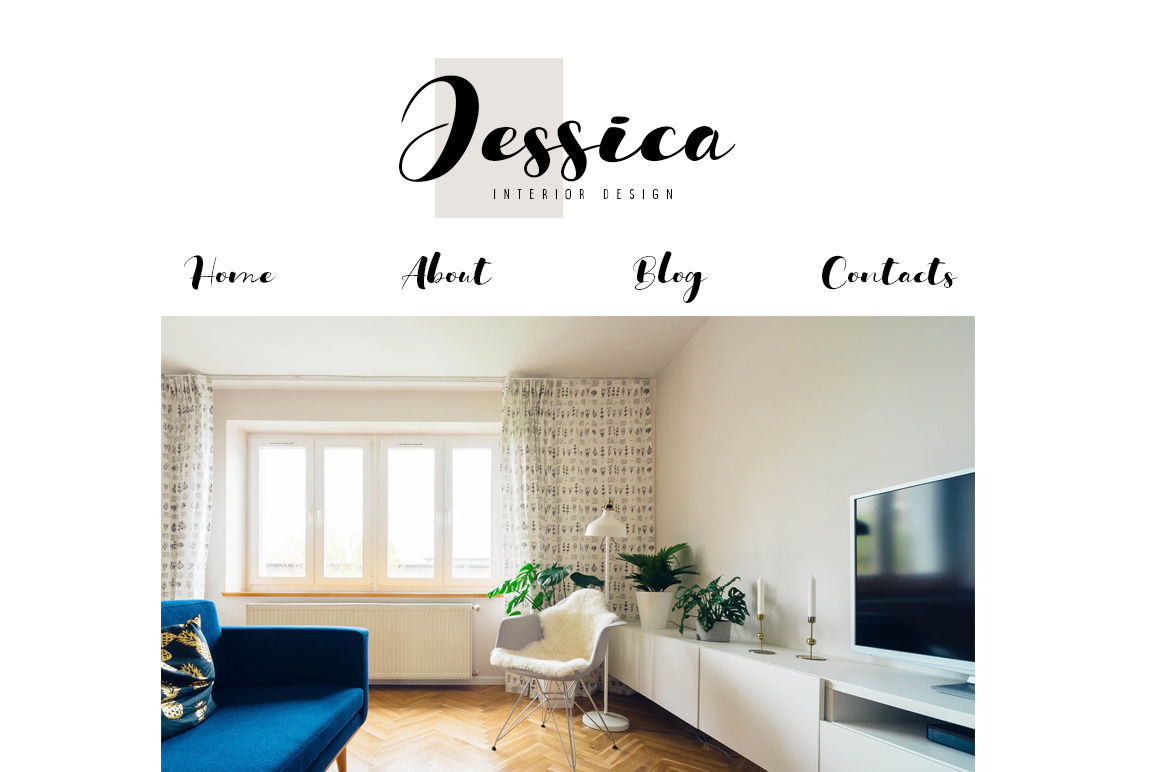
Ohio Font Duo
Introducing the Ohio Font Duo, a handwriting script and sans nice font type. Ohio Font Duo it’s perfect for namecard, poster, logo, magazine, cover, banner, tshirt and headers, or even large-scale artwork.. Files Included:   Ohio Script (otf, ttf & woff) Ohio Sans (otf, ttf & woff) Thank you for checking and i hope you enjoy it. Always put your heart into it and don’t worry to try. I hope you have as much fun using it as i did making it Khurasan mail support: